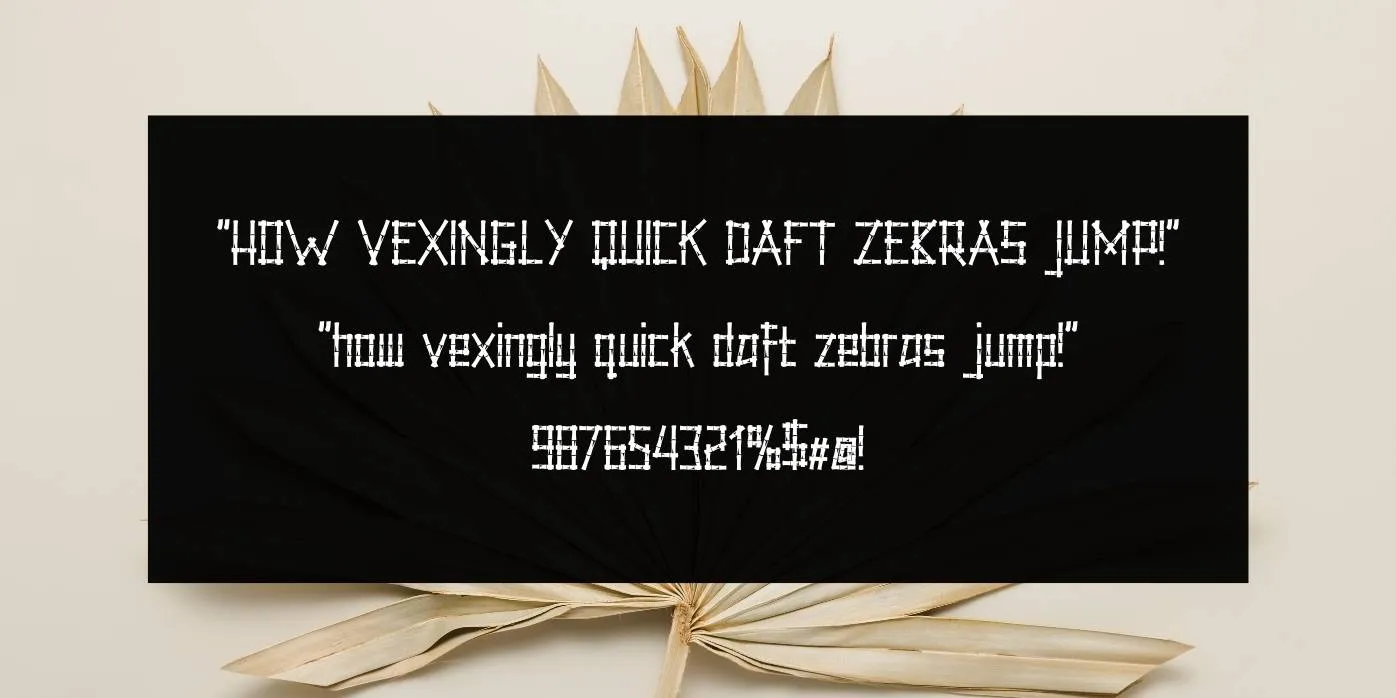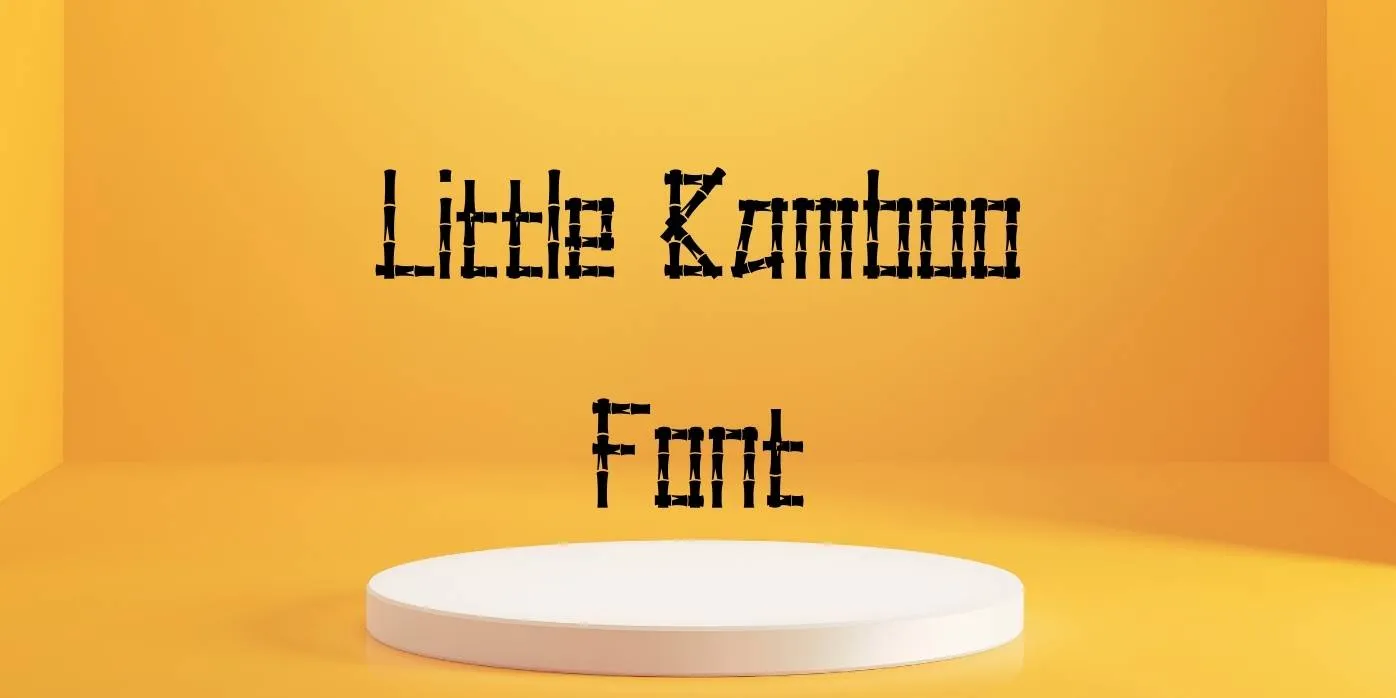
Little Bamboo Font
Little Bamboo Font is a decorative font designed by A.M. Cassandre in 1929. The design is based on the Chinese characters for bamboo, and the font was originally intended for use in advertising and display work. This font style is known for its playful and whimsical appearance, and it has been used in a variety of commercial and personal projects over the years.